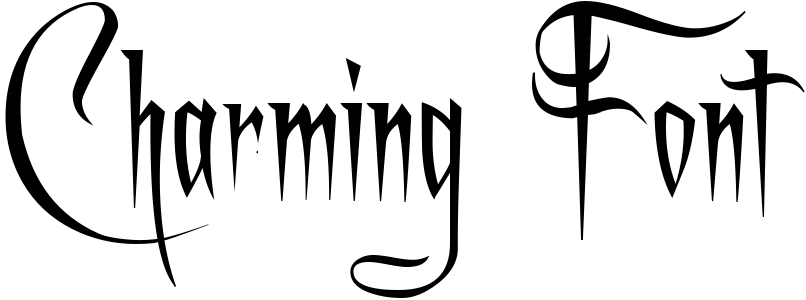
Charming Font, as its name suggests, is a delightful and captivating typeface that instantly imbues any text with a sense of whimsy and enchantment. Designed with creativity and versatility in mind, this font straddles the line between playful sophistication and artistic expressiveness, making it an ideal choice for a wide range of design projects.
At the heart of Charming Font's appeal is its unique character styling. Each letterform is carefully crafted to balance readability with personality, featuring gentle curves, subtle variations in line thickness, and distinctive letter shapes that come together to create a harmonious and inviting visual rhythm. This font effortlessly radiates warmth and friendliness, inviting viewers into the text in a way that feels personal and engaging.
One of the remarkable aspects of Charming Font is its adaptability across various mediums and contexts. Whether it's used in digital graphics, print materials, branding, or even whimsical book covers, it retains its character without overwhelming the content. It pairs beautifully with a wide range of other typefaces, allowing designers to mix and match styles to achieve the desired effect. For projects that aim to convey a sense of joy, creativity, or nostalgia, Charming Font is an exceptional choice that adds a touch of magic without sacrificing professionalism.
Overall, Charming Font is more than just a typeface; it's a tool for storytelling. Its design encourages playful engagement, making words leap off the page or screen and into the hearts of the audience. For anyone looking to add a splash of optimism and imagination to their work, Charming Font is a font that promises to charm its way into your design toolkit—and stay there.
Charming Font